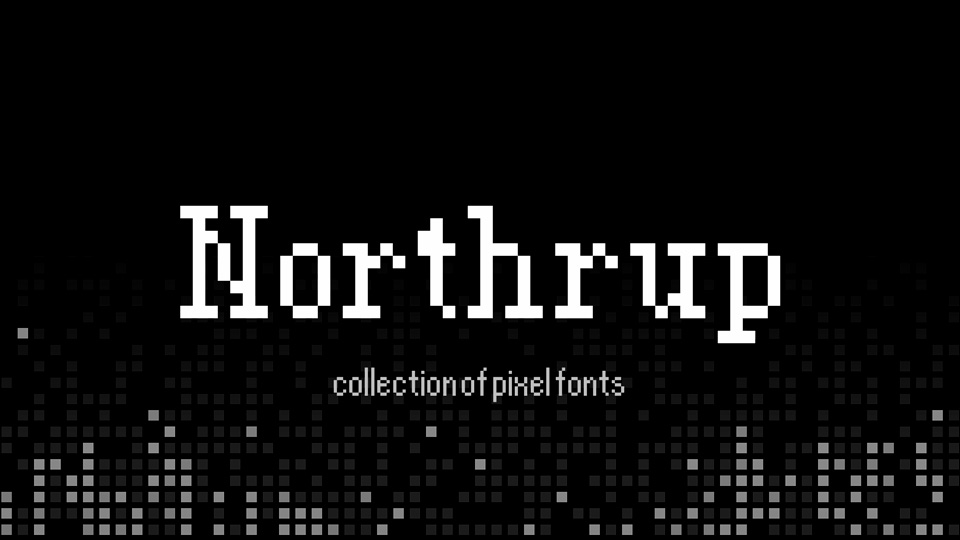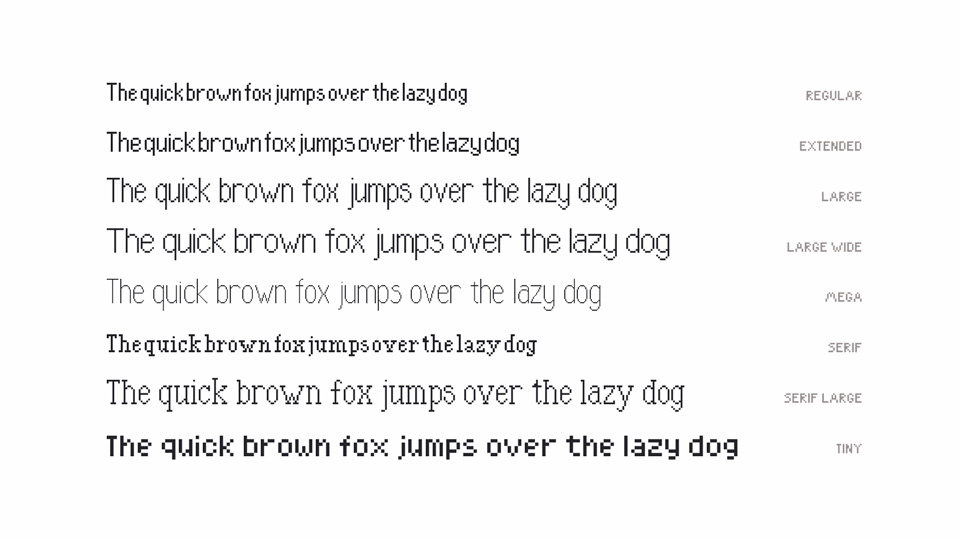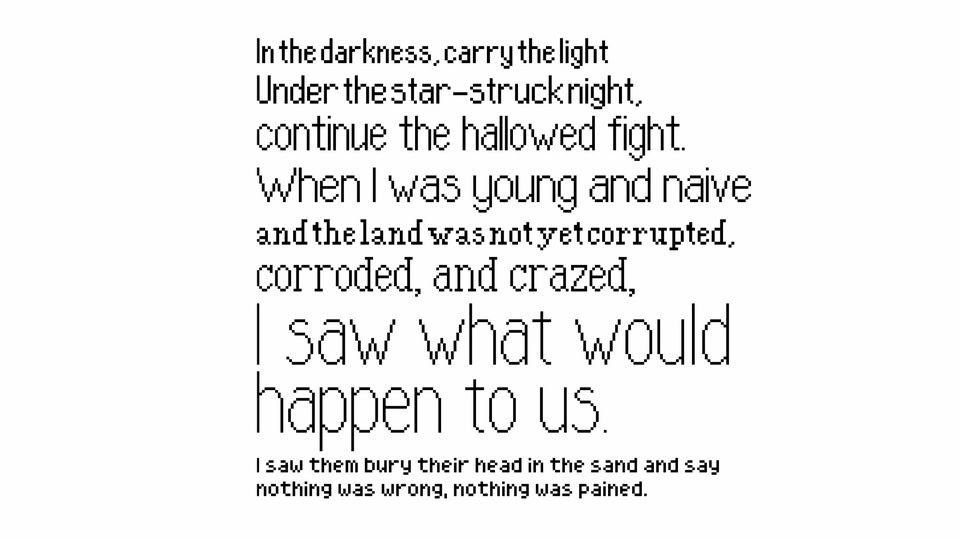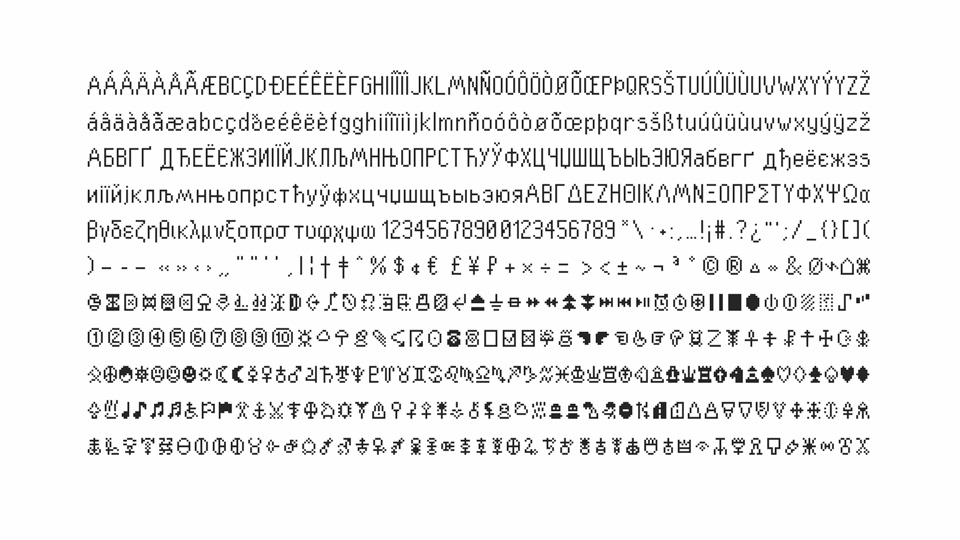
Northrup is a pixel font inspired by classic video games such as the Earthbound series. It boasts eight different variants, each representing one of five different optical sizes and two widths, and either a serif or sans-serif subset.
The main size, Northrup Extended, has a diverse set of features. It supports a wide range of languages, including the Latin, Greek, Cyrillic, and Inuit Syllabic scripts, and a diverse set of special characters, amounting to 1027 total glyphs.